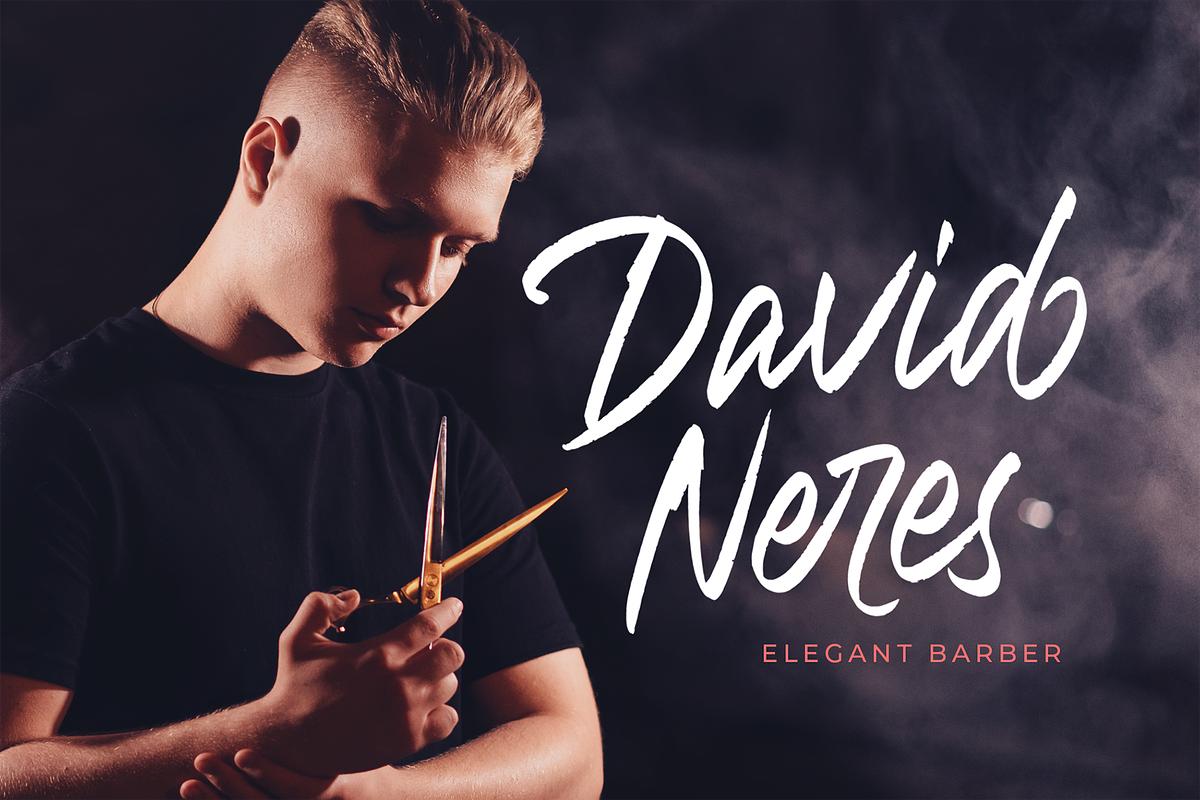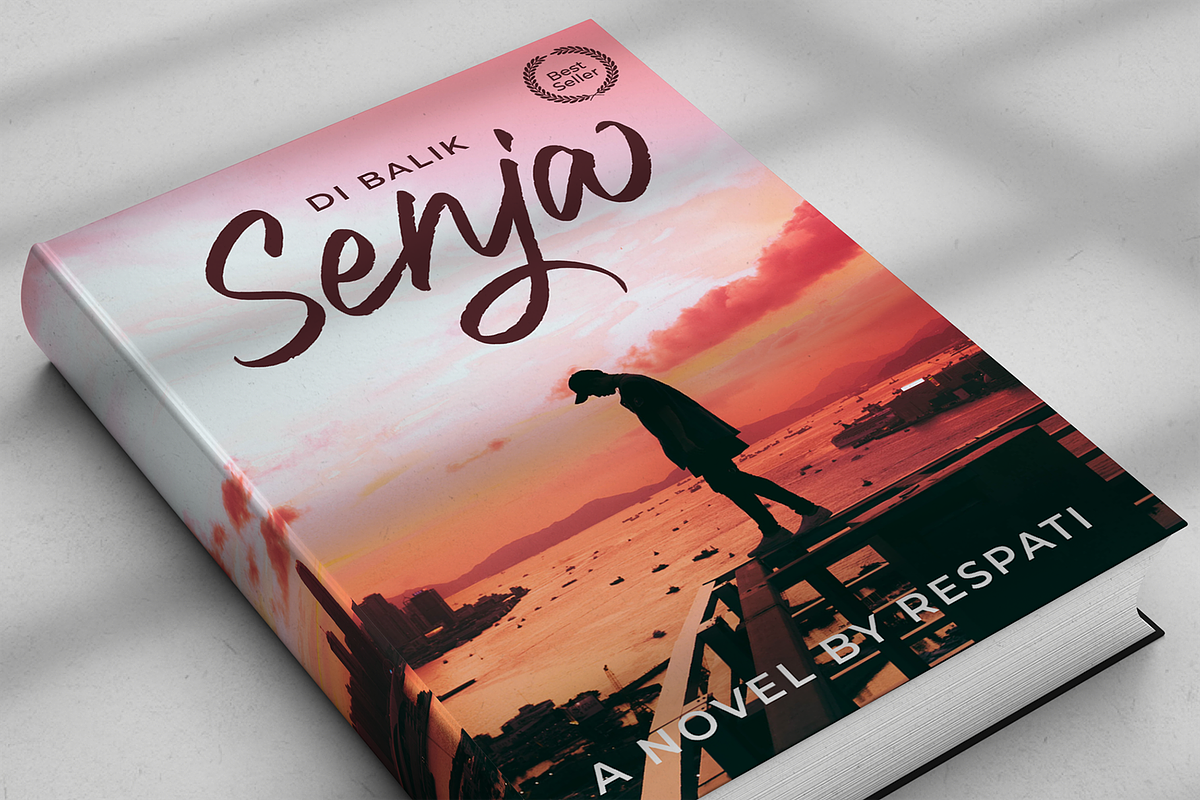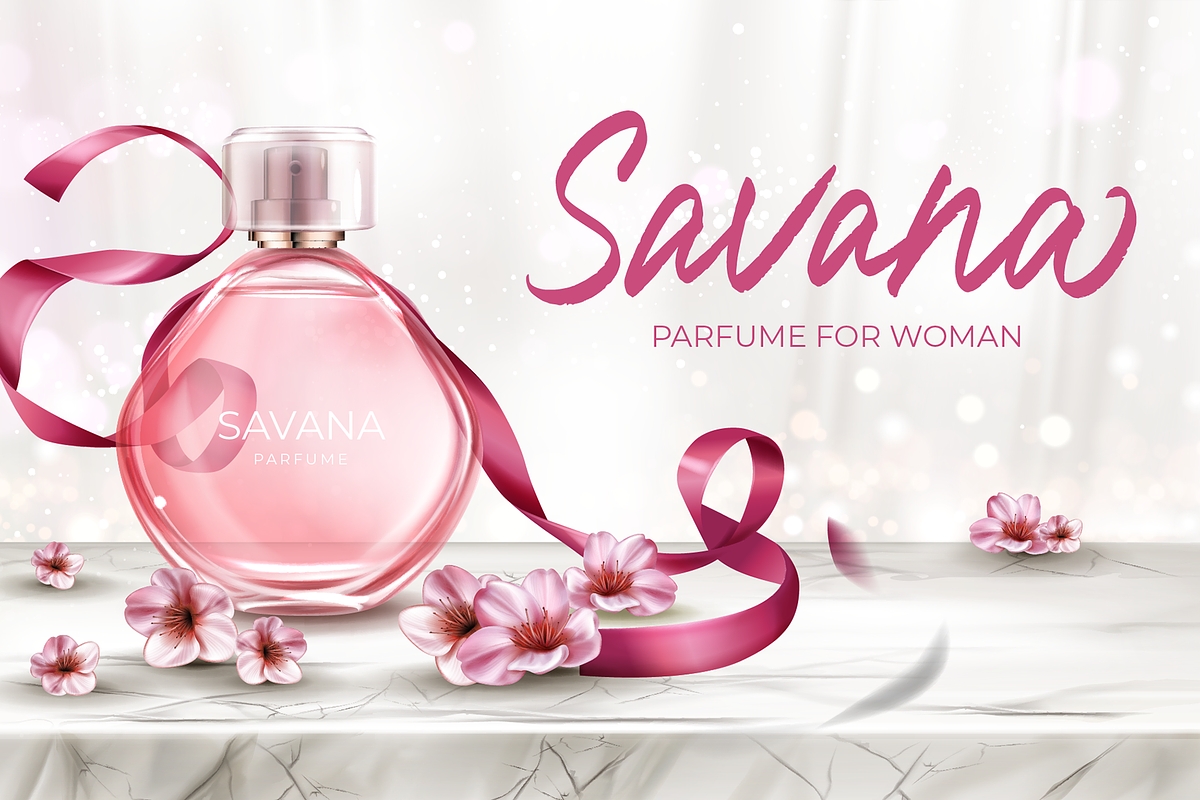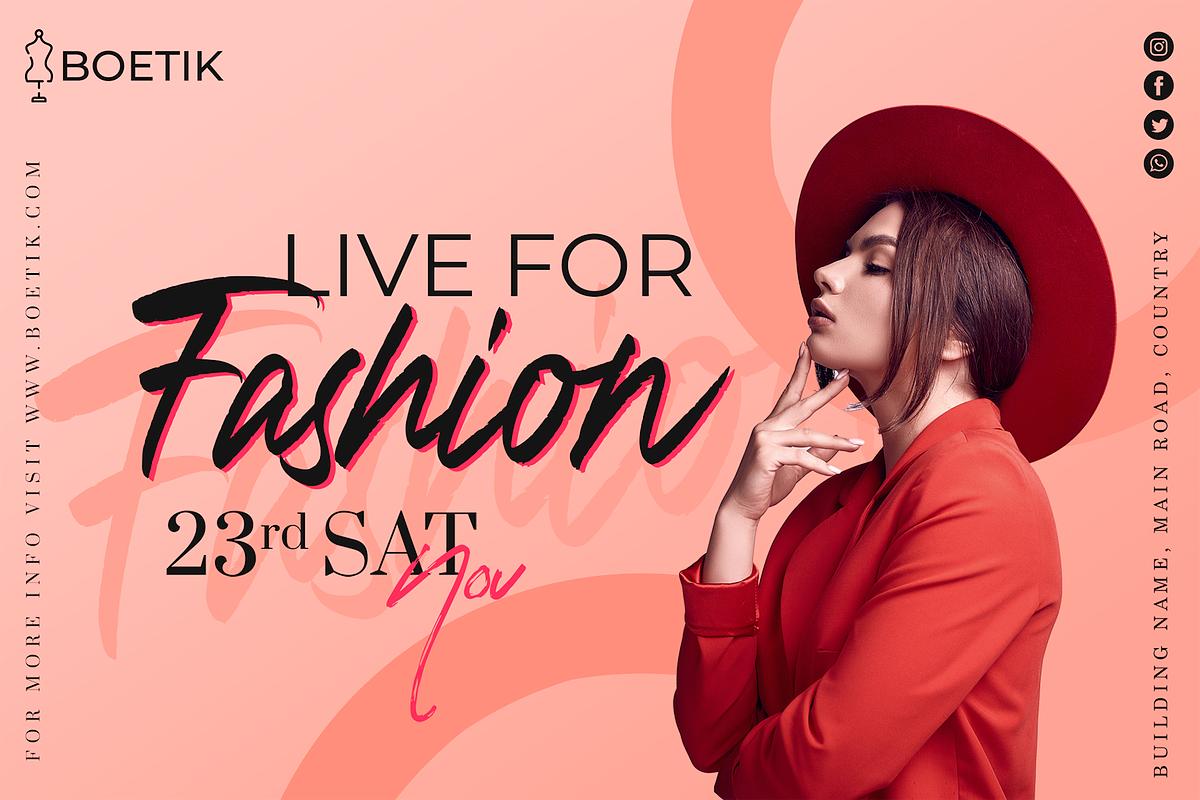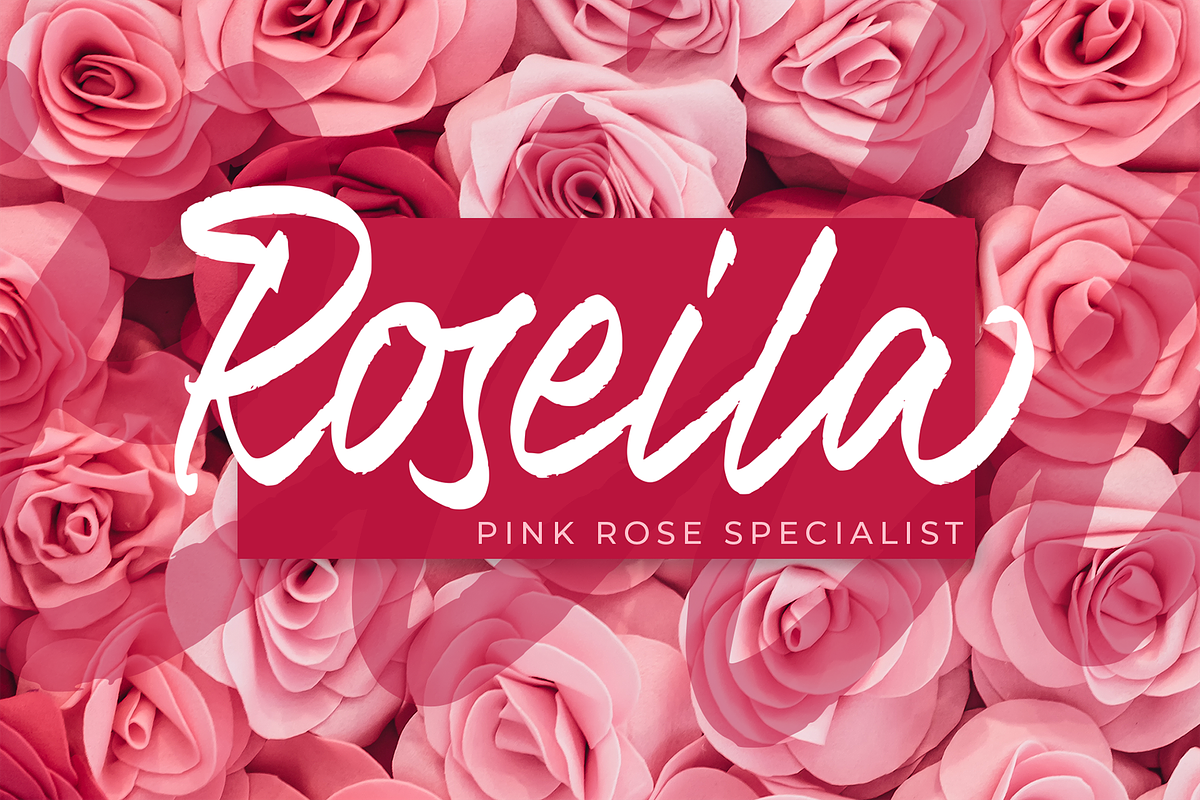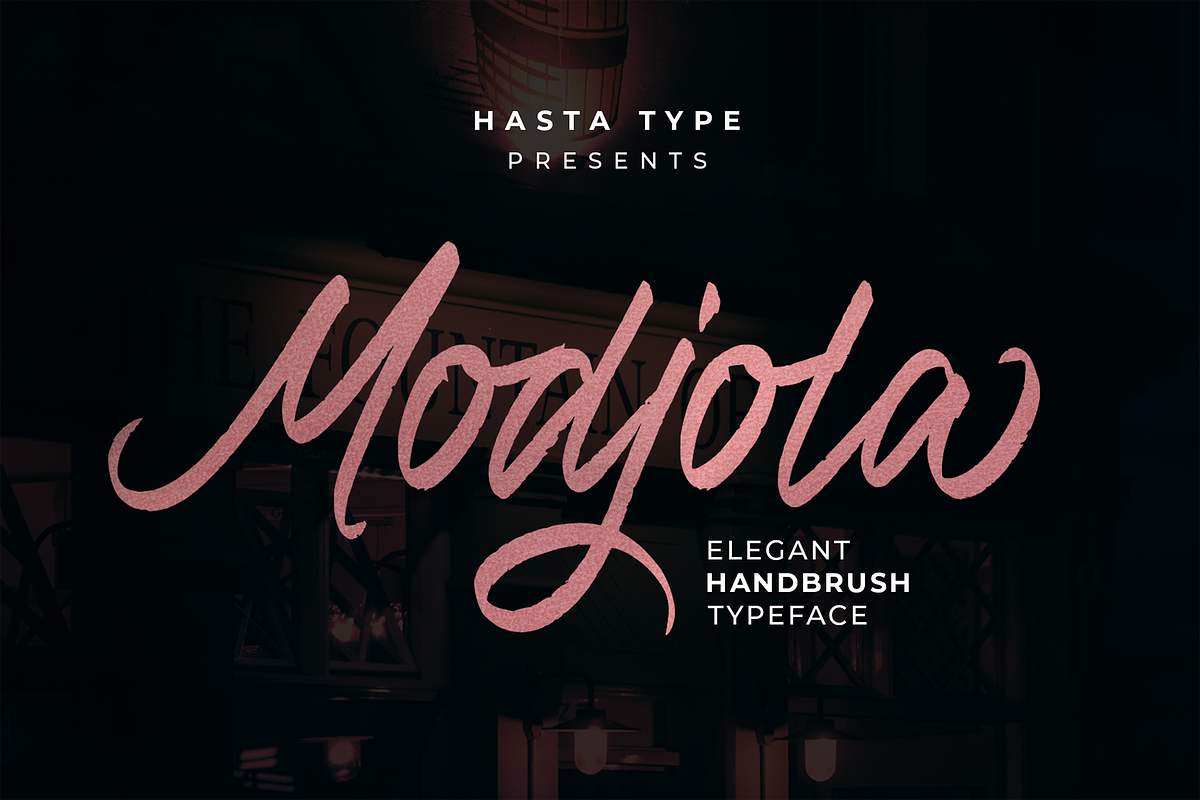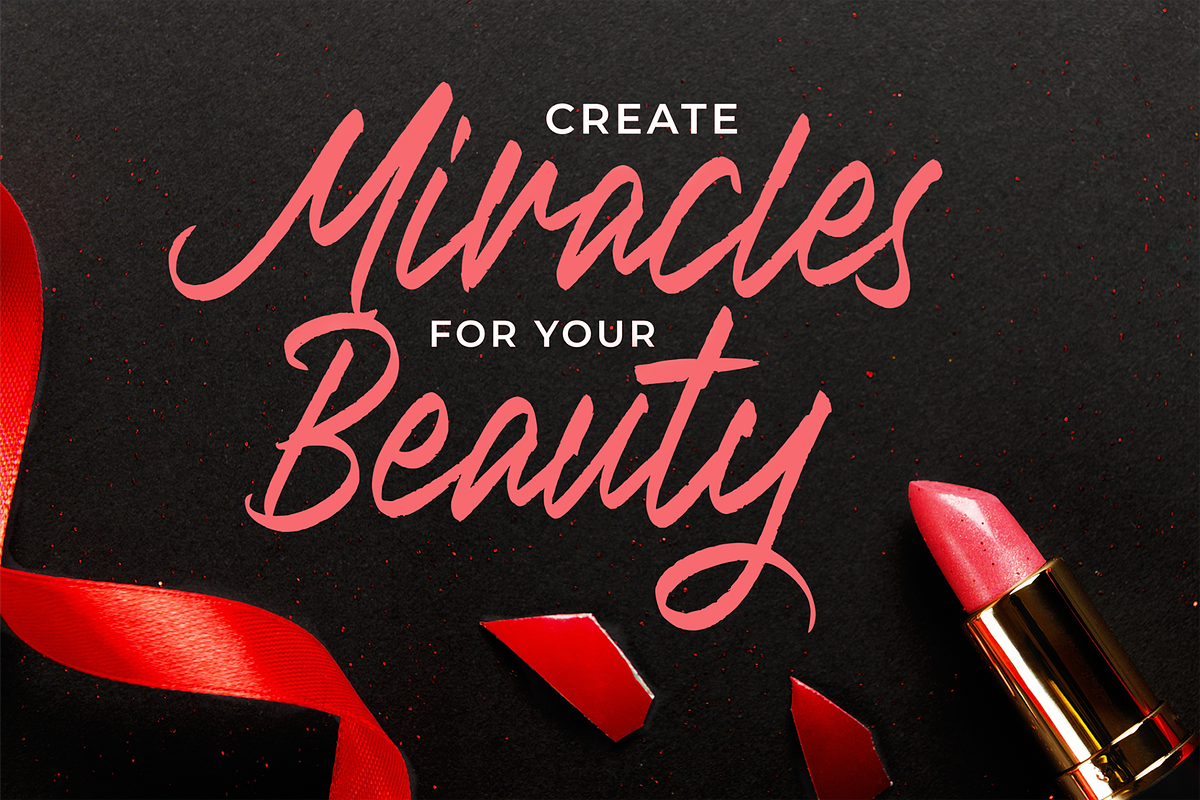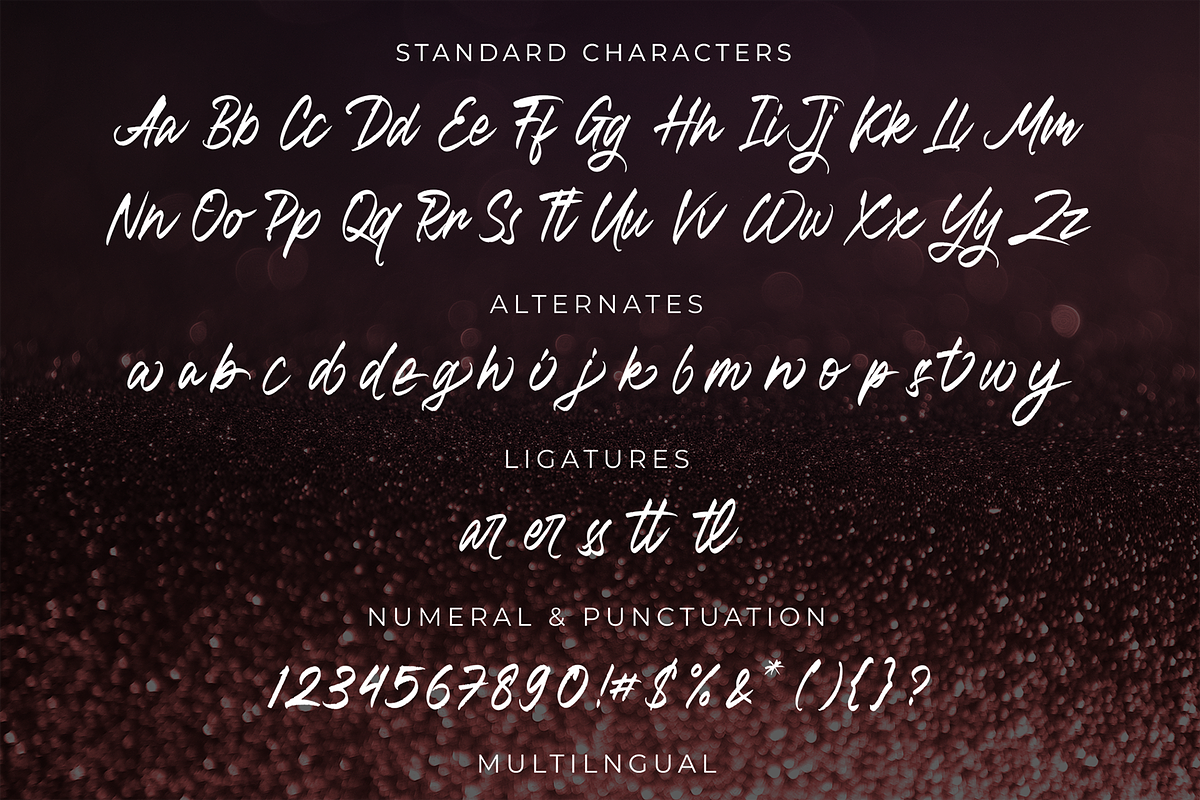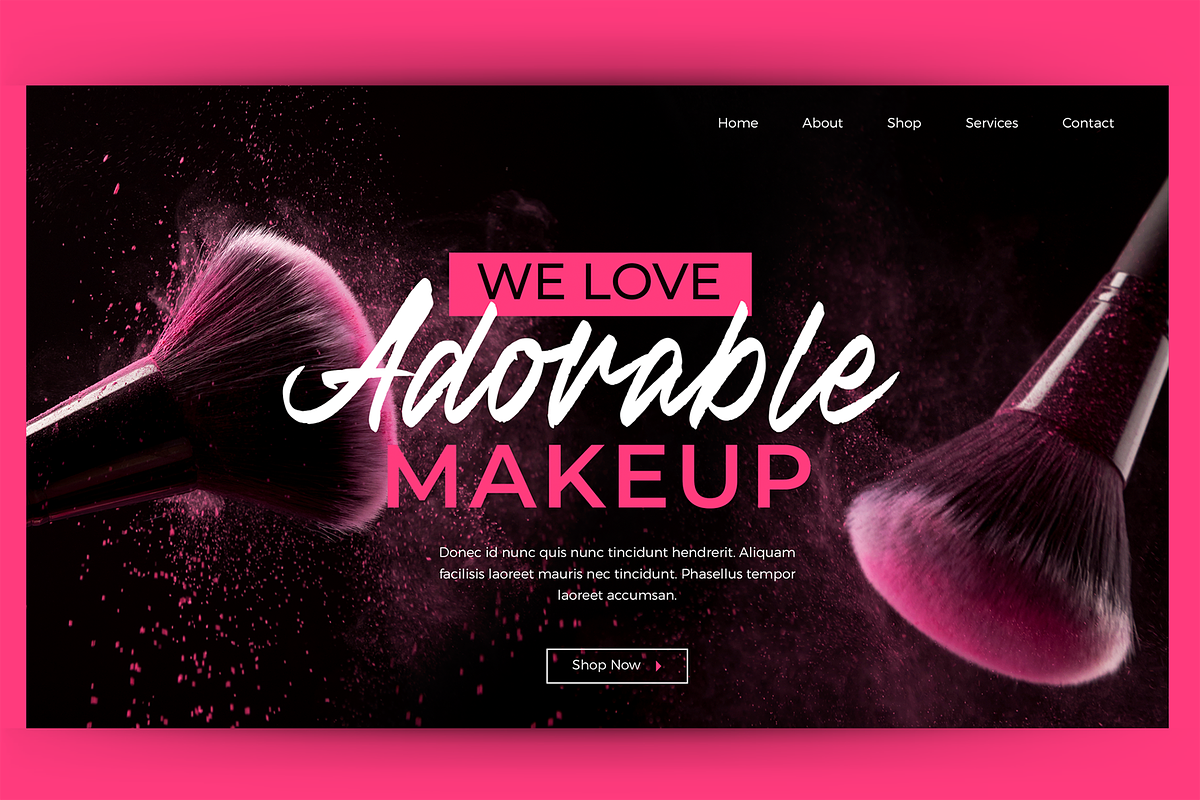
Modjola - Elegant Handbrush Typeface
Modjola is hand brushed font with natural feels. It is carefully crafted to have elegant and charming characteristic. Modjola is perfect for designing a Brand, Quotes, Slogan, poster, book cover, banners and any other projects which needs elegant type.